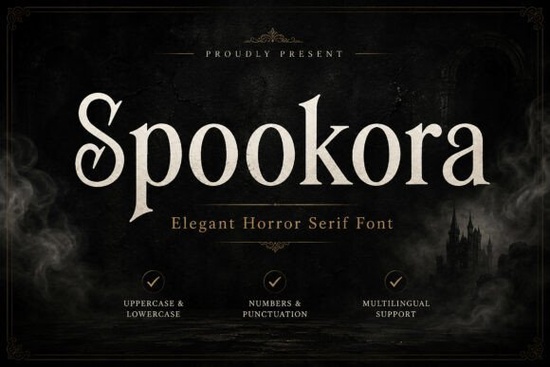
If you've been searching for a typeface that feels dark, mysterious, and sophisticated all at once, the Spookora Font might be exactly what your next project needs. It's a horror-inspired serif with sharp curves, dramatic contrast, and gothic letterforms that give off a vintage yet refined vibe. Whether you're working on Halloween branding, a dark fantasy book cover, or eerie event invitations, this font brings atmosphere without feeling cheap or overdone.
What Makes Spookora Different from Other Horror Fonts?
Plenty of horror fonts lean into exaggerated, cartoonish looks. They work fine for kids' Halloween parties, but they fall flat when you need something with real depth and sophistication. This elegant horror serif takes a different approach it draws from vintage gothic design traditions while keeping the letterforms clean and readable.
The sharp serifs and dramatic stroke contrasts give it a hauntingly elegant feel. It doesn't scream "horror." It whispers it. That subtle quality makes it versatile enough for professional branding, editorial design, and premium merchandise not just seasonal projects.
Spookora comes with a solid set of features that cover most design needs:
- Uppercase and lowercase letters for full typographic flexibility
- Numbers and punctuation so you can use it across layouts without switching fonts
- Ligatures that add polish to specific letter combinations
- Stylistic alternates for customizing the look of certain characters
These extras matter. Ligatures and alternates let you fine-tune headlines and logos so they don't look cookie-cutter. If you've ever struggled with a horror font that only had uppercase letters, you'll appreciate having the full range here.
What Types of Projects Work Best with This Font?
Spookora is built for projects where atmosphere matters. Here are some real-world uses that work particularly well:
- Horror movie posters and film festival promotions
- Halloween branding for seasonal businesses, events, or pop-up shops
- Dark fantasy and gothic book covers especially for indie authors
- Gothic logos for brands with a moody, alternative aesthetic
- Merchandise design like t-shirts, mugs, and tote bags
- Packaging design for candles, cosmetics, or specialty products with a dark theme
- Social media graphics that need to stand out with a mysterious vibe
- Editorial titles for magazines, blogs, or zines with a horror or gothic focus
- Vintage posters and retro-inspired event flyers
If you sell print-on-demand products, a font like this can open up an entire niche. Halloween and horror-themed designs sell year-round not just in October. Think about gothic romance readers, true crime fans, and alternative fashion buyers. They're all looking for designs that feel dark and intentional.
How Does It Pair with Other Fonts?
A horror serif like Spookora works best when you pair it with something simpler for body text. A clean sans-serif or a light, elegant serif can balance out the drama without competing for attention.
For example, you might use Spookora for a book title and a neutral serif for the author name and back-cover text. On a poster, let it dominate the headline while keeping event details in a lighter typeface. The contrast creates visual hierarchy and keeps the layout readable.
Is Spookora Right for Your Project?
Ask yourself these questions:
- Does your design need a dark, sophisticated tone rather than a playful or cartoonish one?
- Are you targeting an audience that appreciates gothic, vintage, or alternative aesthetics?
- Do you need both uppercase and lowercase characters along with stylistic extras?
- Is your project something like a book cover, poster, logo, or branded merchandise?
If you answered yes to most of these, Spookora is a strong fit. It's not trying to be a jack-of-all-trades font. It's designed for a specific mood mysterious, dramatic, and timeless and it delivers on that promise clearly.
- Review the character set make sure it includes every letter, number, and symbol your design requires
- Test it at different sizes horror serifs can lose detail at small sizes, so check readability
- Plan your pairings decide what secondary font you'll use for body text before you start designing
Take a few minutes to preview Spookora in your actual design context before committing. A font that looks great on a product page might need adjustments in your specific layout and that's completely normal for any typeface worth using.